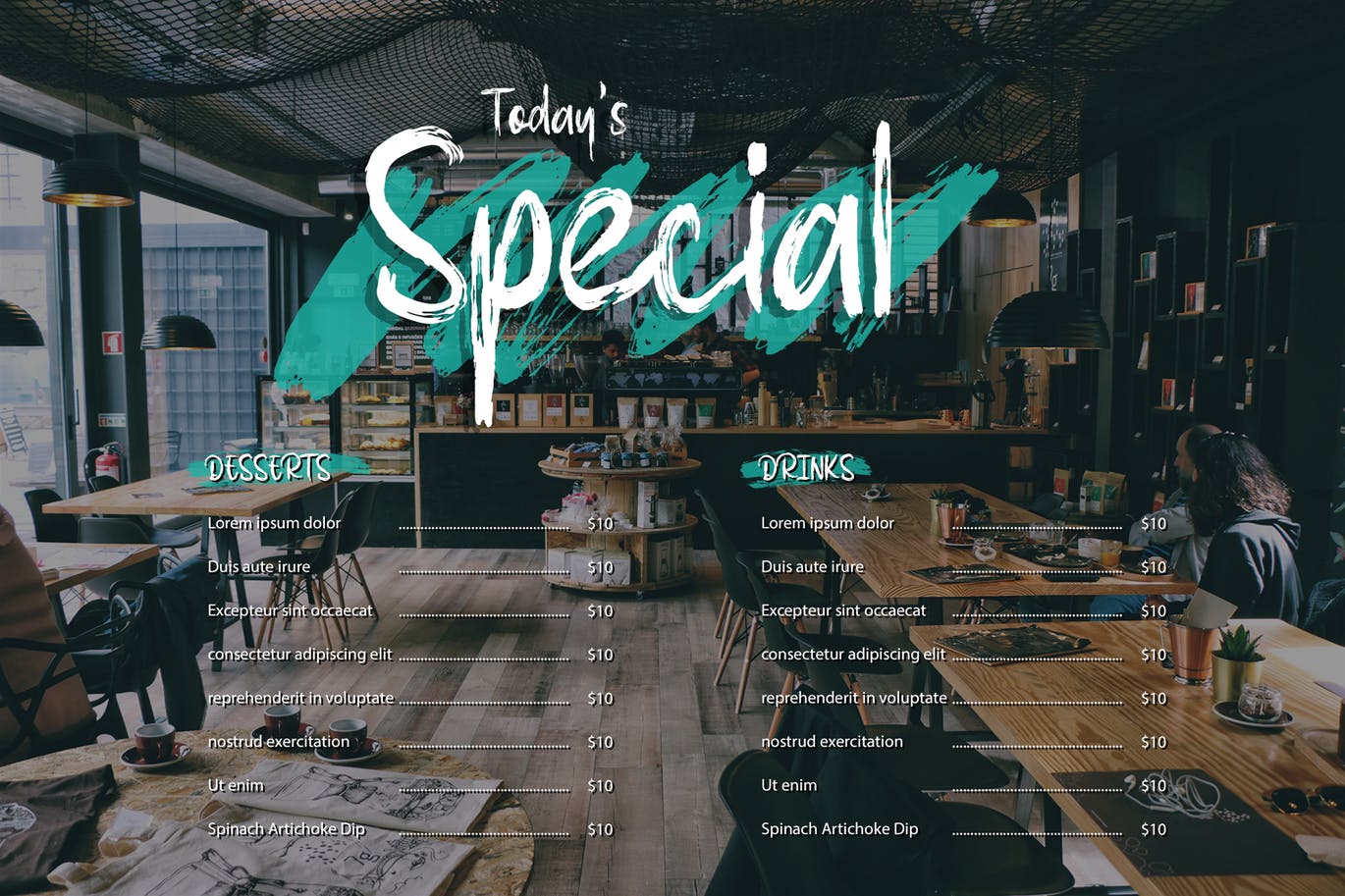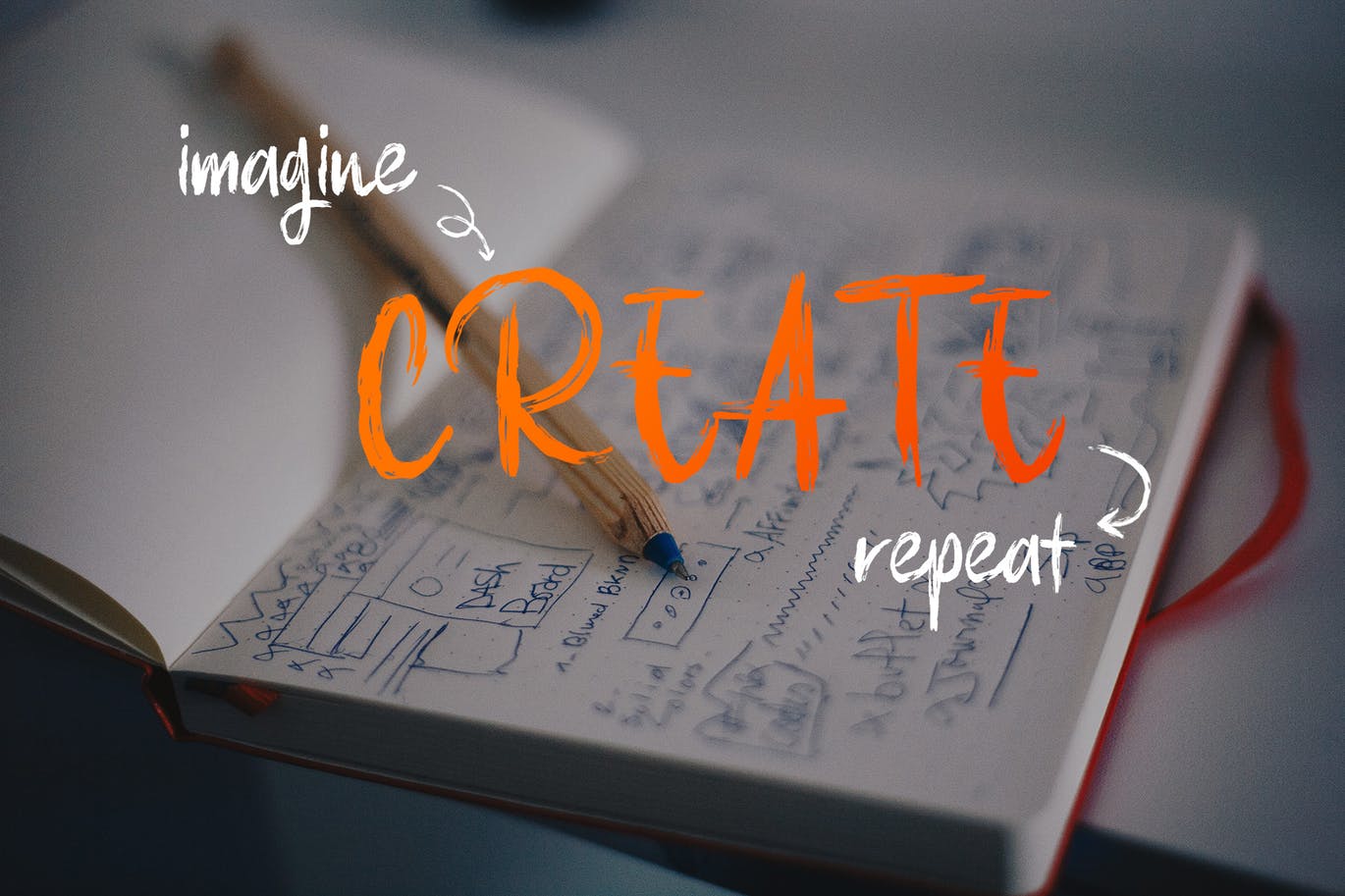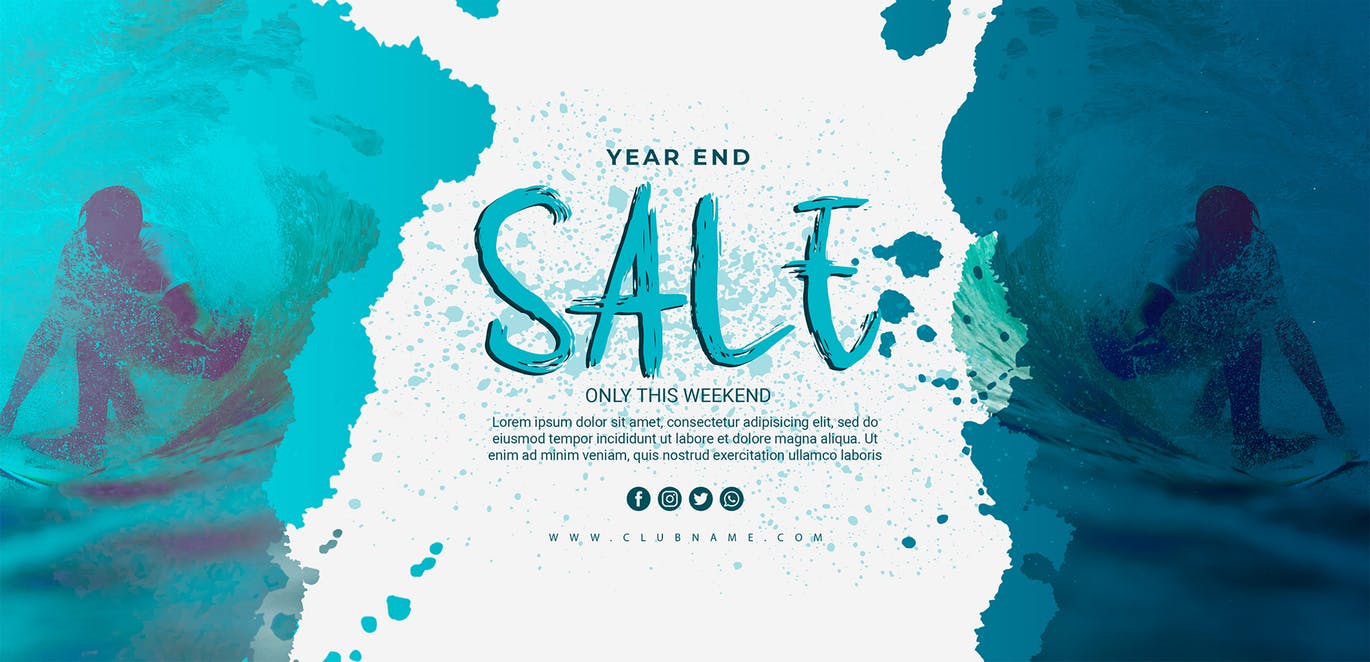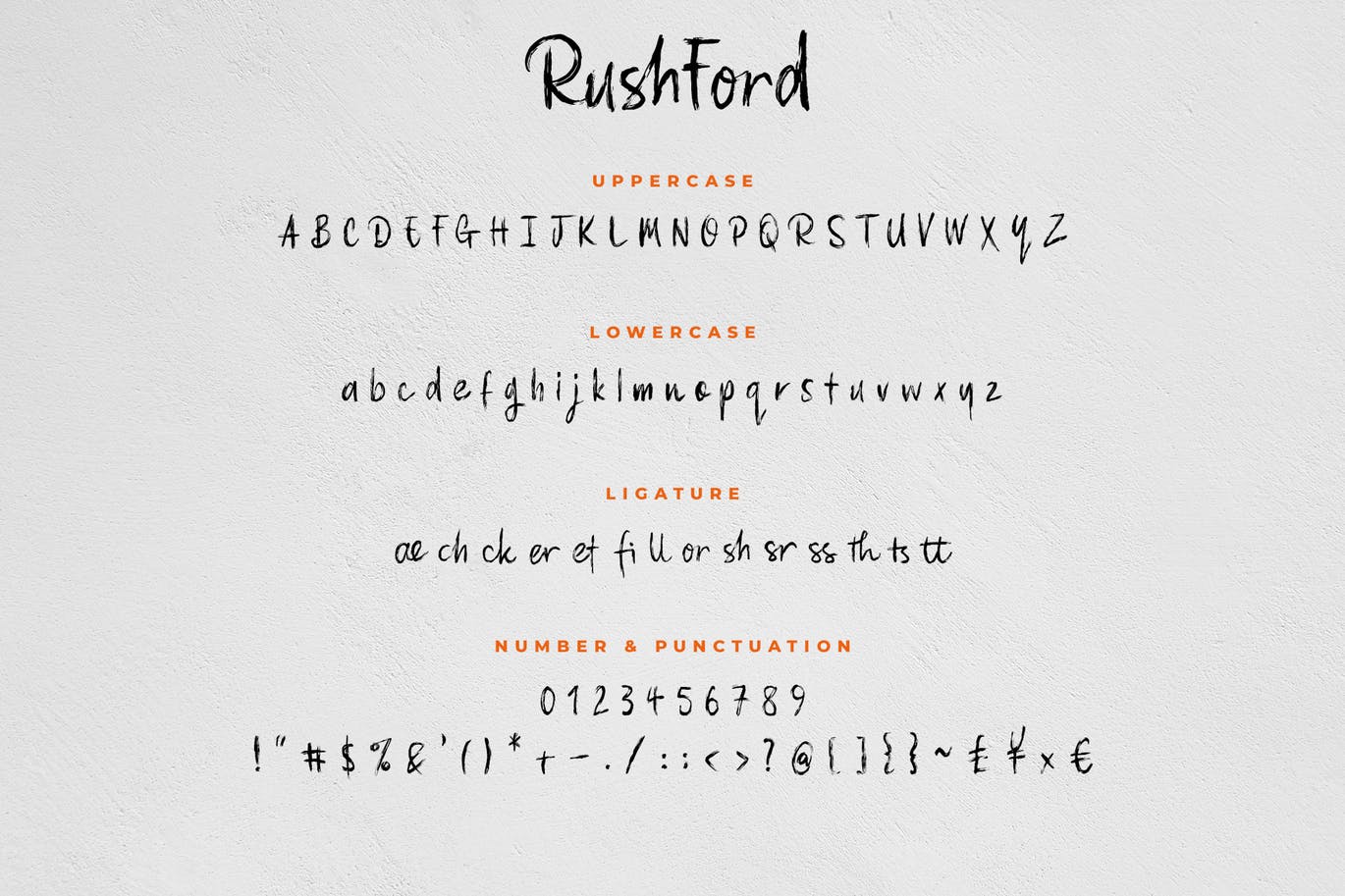
RushFord – Brush Lettering Font
RushFord is a hand brush lettering font. Work great for any design needs: logo, branding, modern advertising design, logos, poster quote, book/cover Title, editorial design, website/blog, card, custom mug, pillow, t-shirts, and any hand-lettered needs.
RushFord (.ttf + .otf + webfont) comes with upper and lowercase Standard Characters, Ligatures, Punctuation, and Numerals.